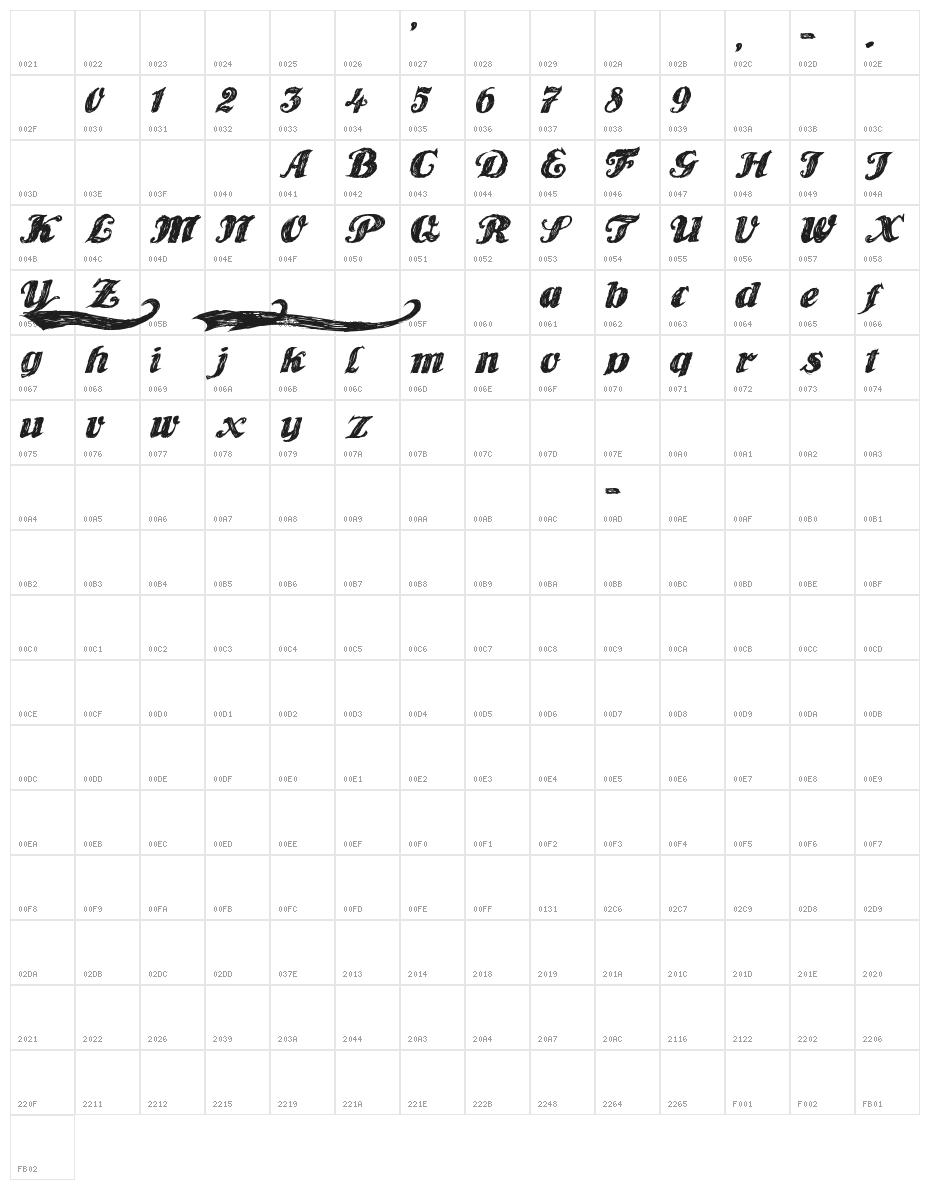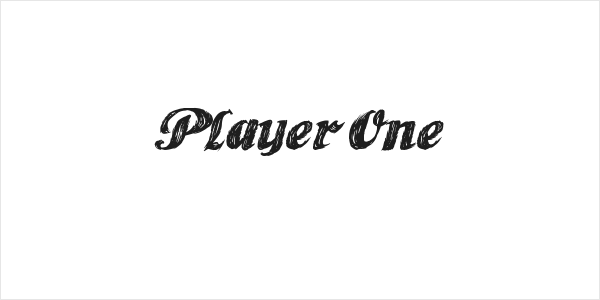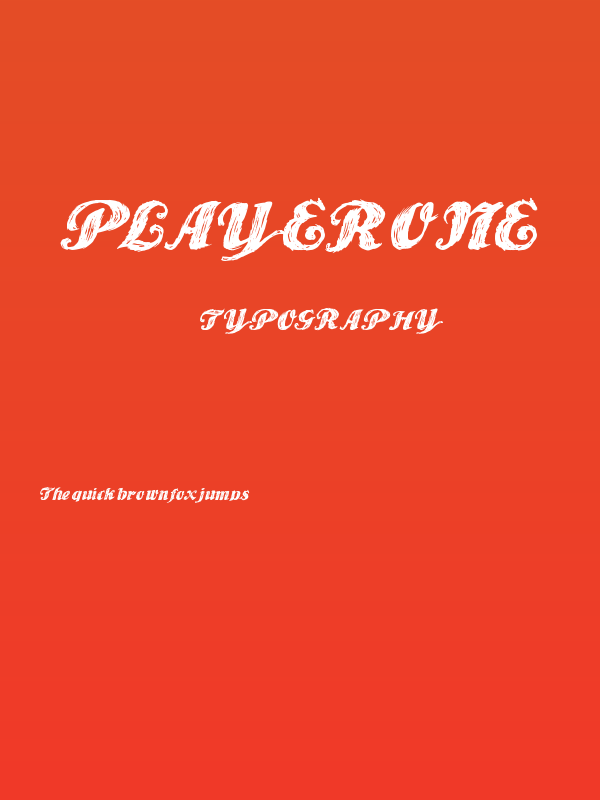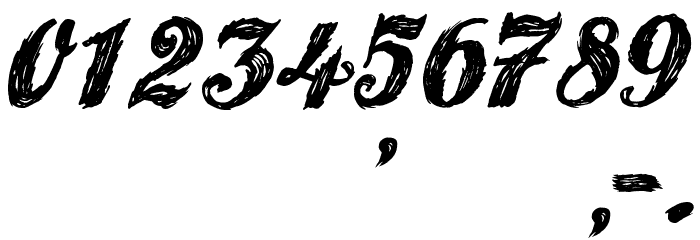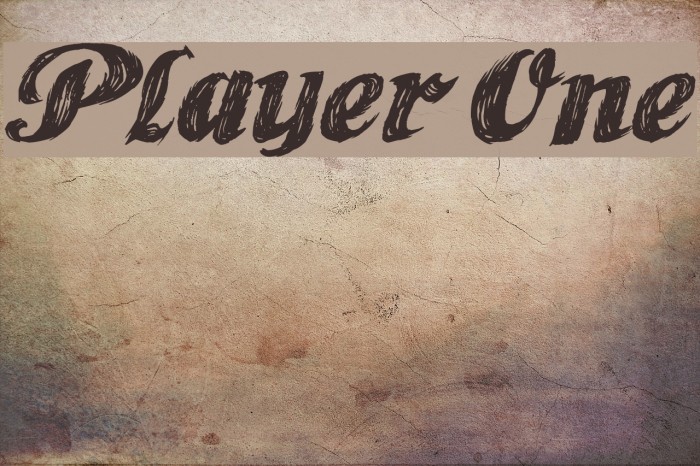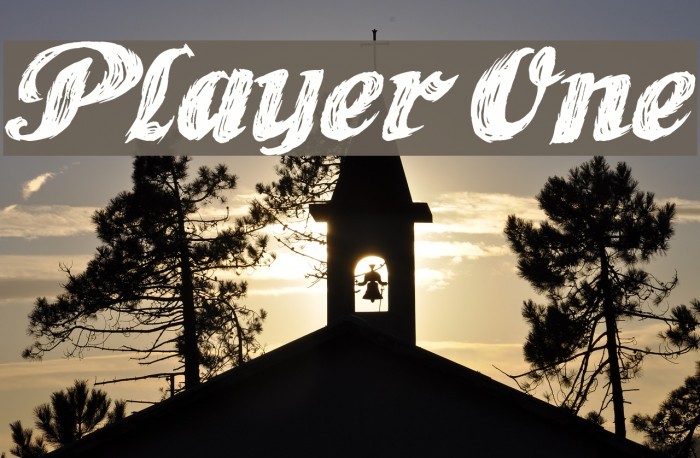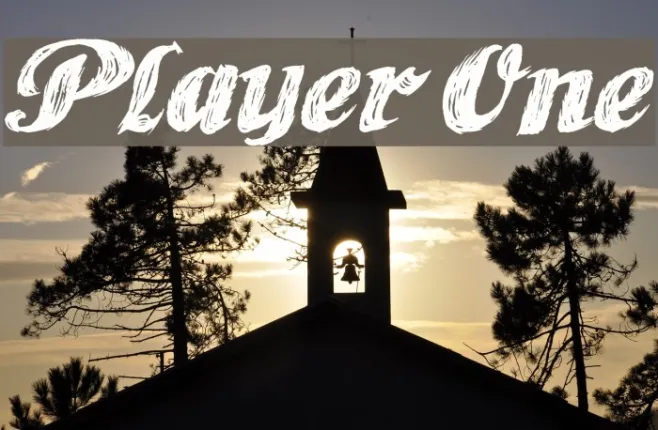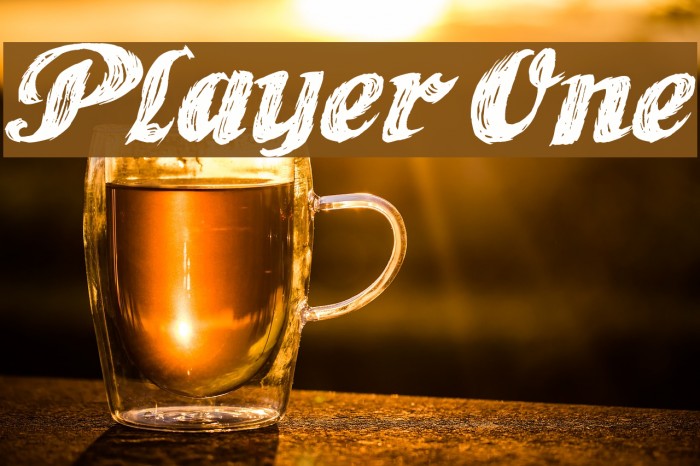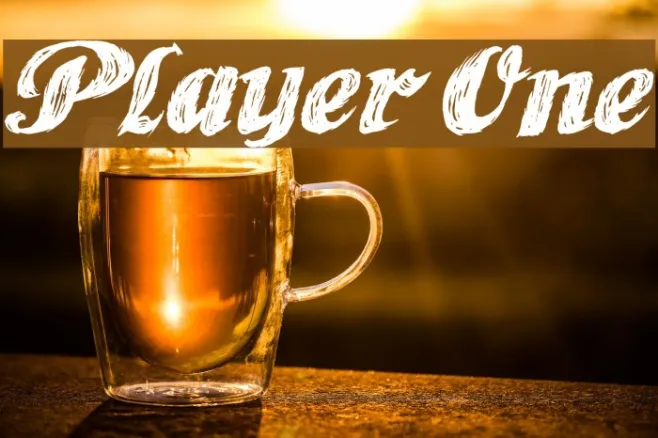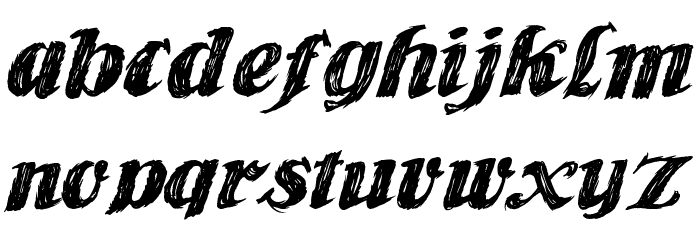
Player One Font
Player One Description
This font features a bold and dynamic script style with a textured appearance, reminiscent of brush strokes or calligraphy. The letters are highly stylized with exaggerated curves and flourishes, giving it a dramatic and artistic flair. The uppercase letters are particularly ornate, while the lowercase letters maintain a consistent flow and rhythm. The numbers and special characters follow the same decorative style, ensuring a cohesive look across all elements. The font's unique texture and bold presence make it stand out, suitable for projects that require a strong visual impact.